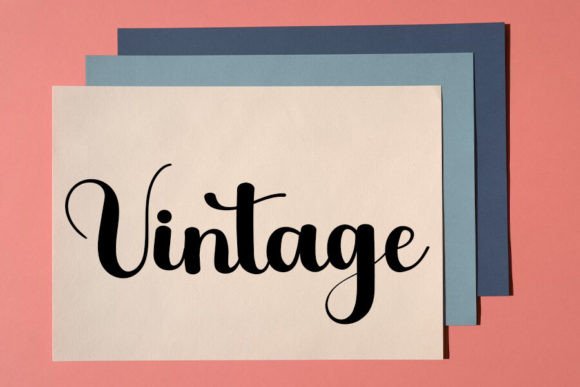
Thick Font
Thick is an enchanting handwritten font. This versatile script font has a wide spectrum of applications ranging from greeting cards to headlines and is guaranteed to add a romantic feel to your next project.